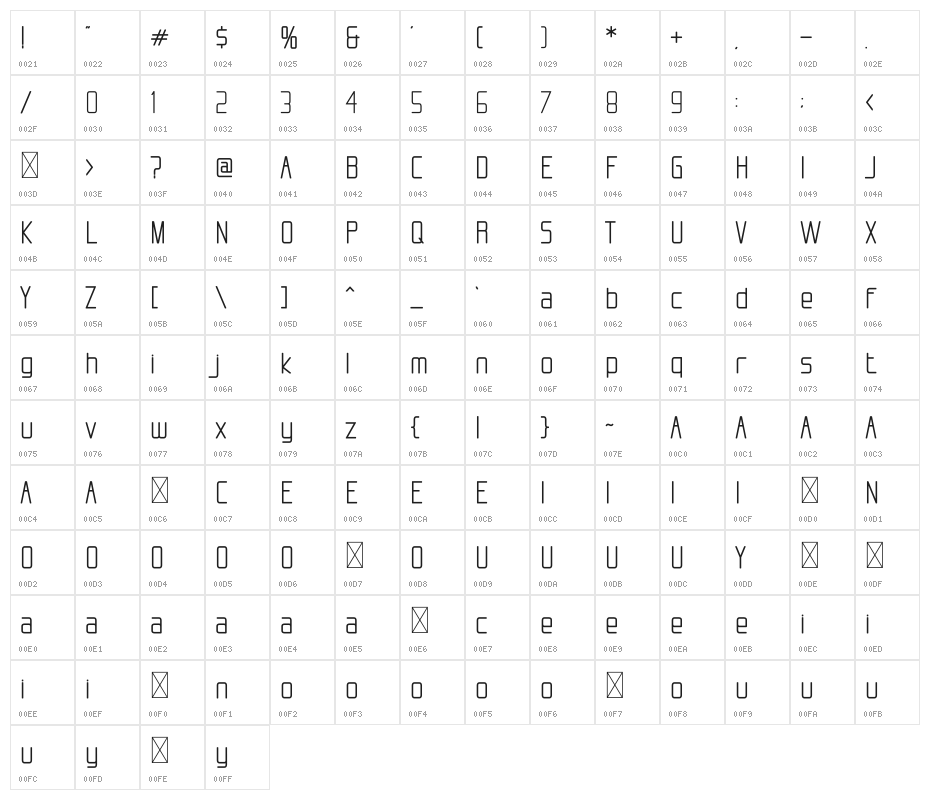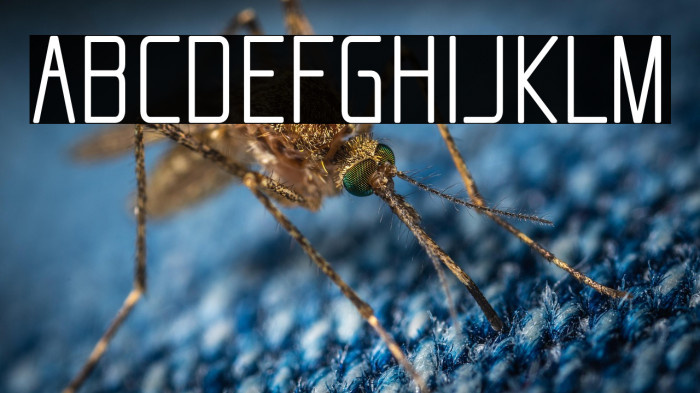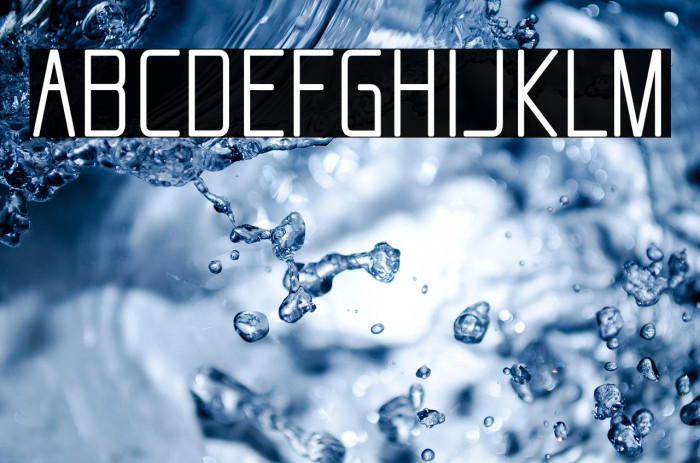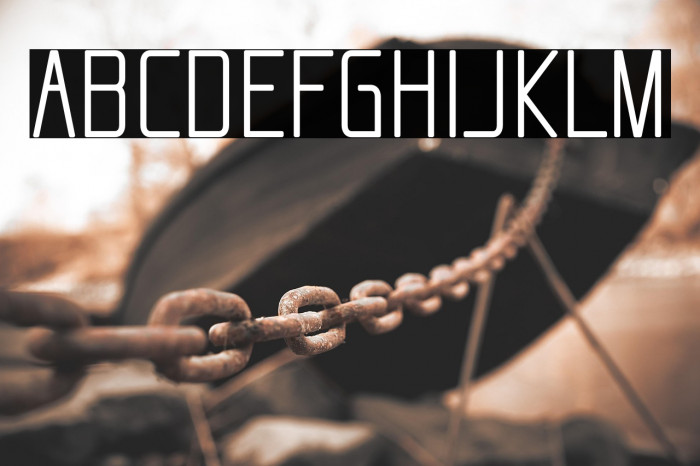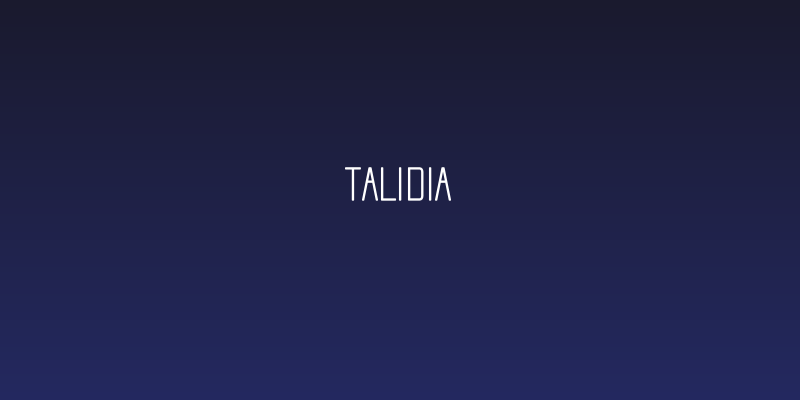
Talidia Font
Talidia Description
This font features a modern and clean design with a geometric structure. The characters are slightly elongated, giving them a sleek and contemporary appearance. The strokes are consistent in width, providing a uniform look across all characters. The font maintains a balance between rounded and angular elements, making it versatile for various design applications. Its simplicity and clarity make it suitable for both digital and print media. The numerals and special characters are designed to match the overall aesthetic, ensuring cohesion throughout any text.
| Proposed Projects | Ideal for tech branding, modern web design, app interfaces, and minimalist posters. |